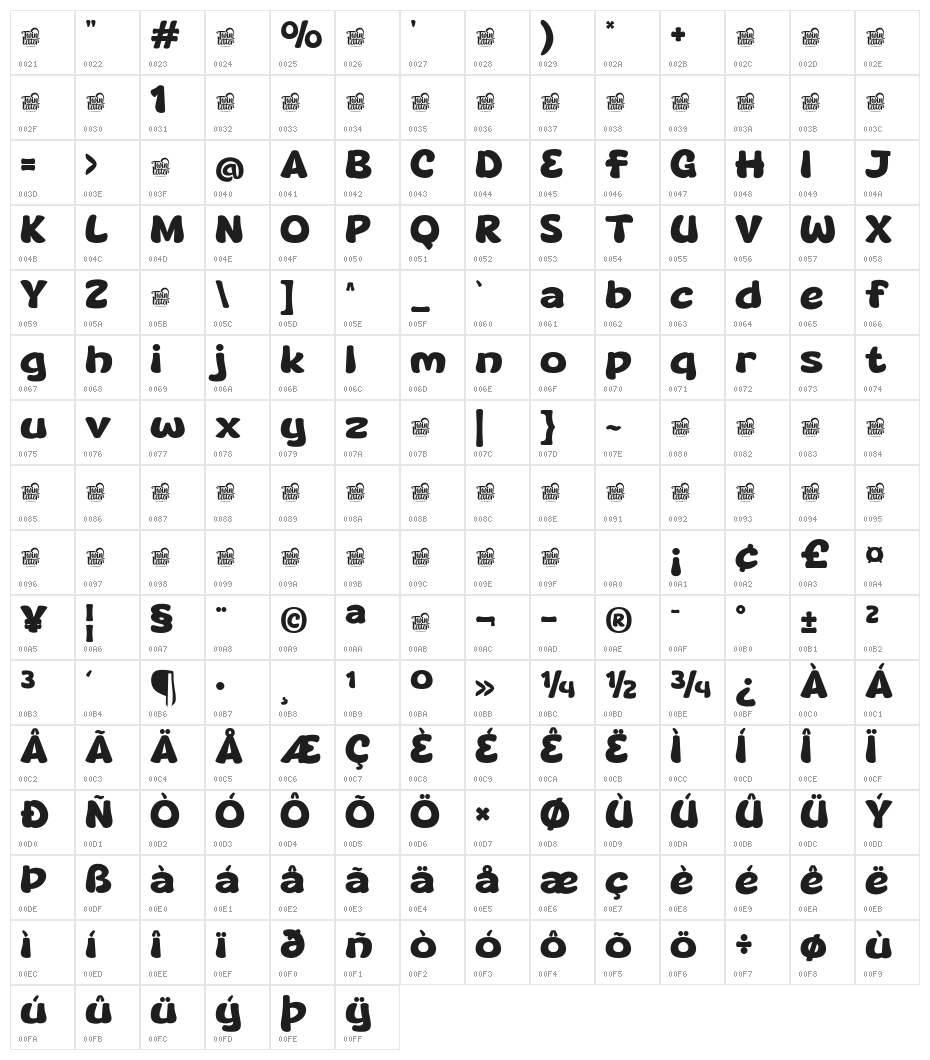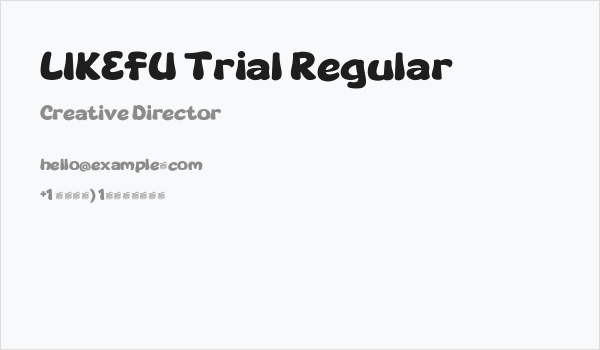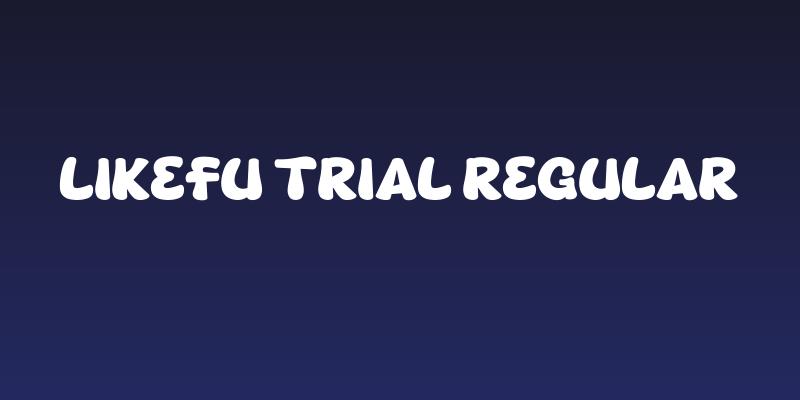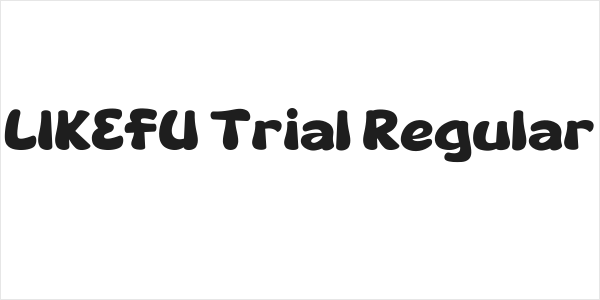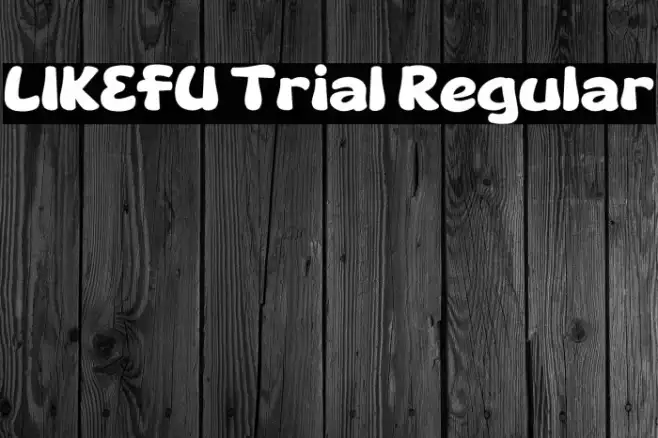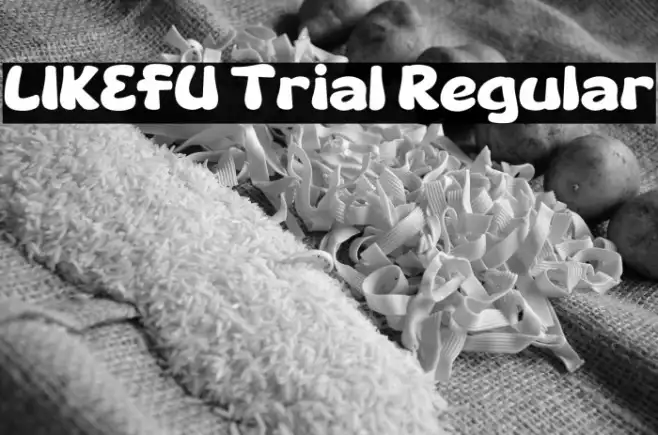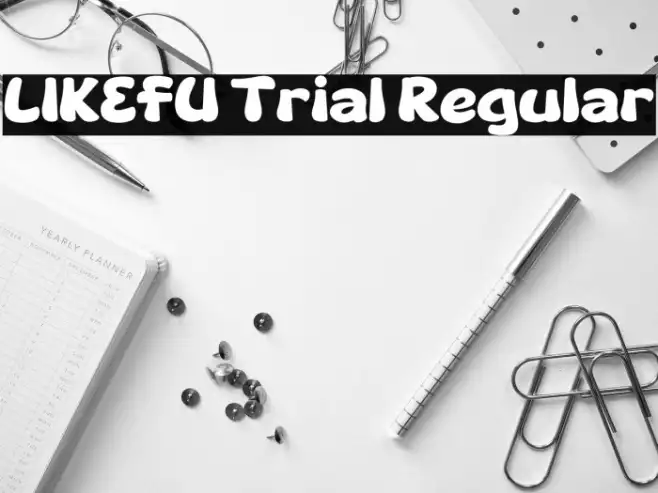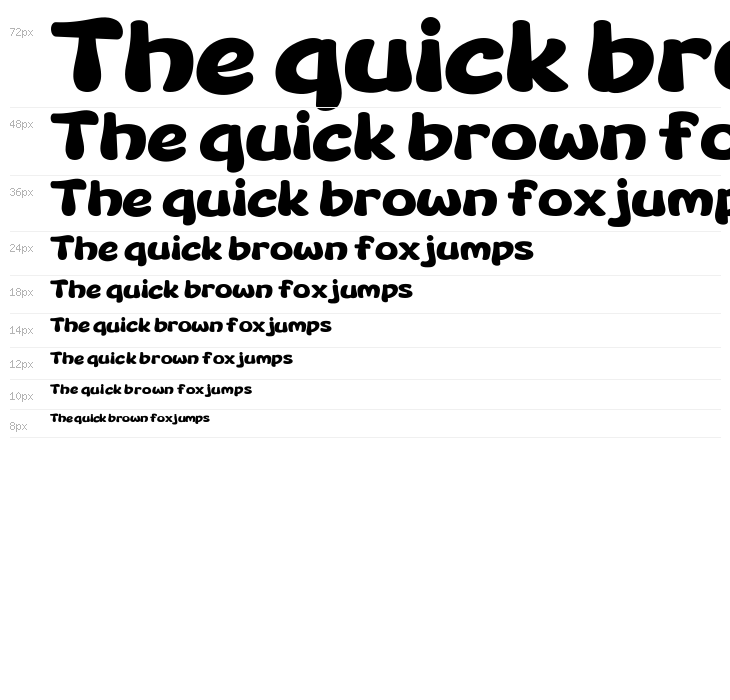
LIKEFU Trial Regular Font
This playful and bold font features rounded, thick strokes that give it a friendly and approachable appearance. The characters are slightly condensed, enhancing readability while maintaining a unique style. The uppercase and lowercase letters are well-balanced, with a consistent stroke width that adds to the font's cohesive look. The numerals and special characters are designed to match the overall aesthetic, making it versatile for various applications. Its boldness and rounded edges make it stand out, suitable for projects that require a touch of fun and creativity.
| Proposed Projects | Ideal for children's books, playful branding, posters, and social media graphics. |